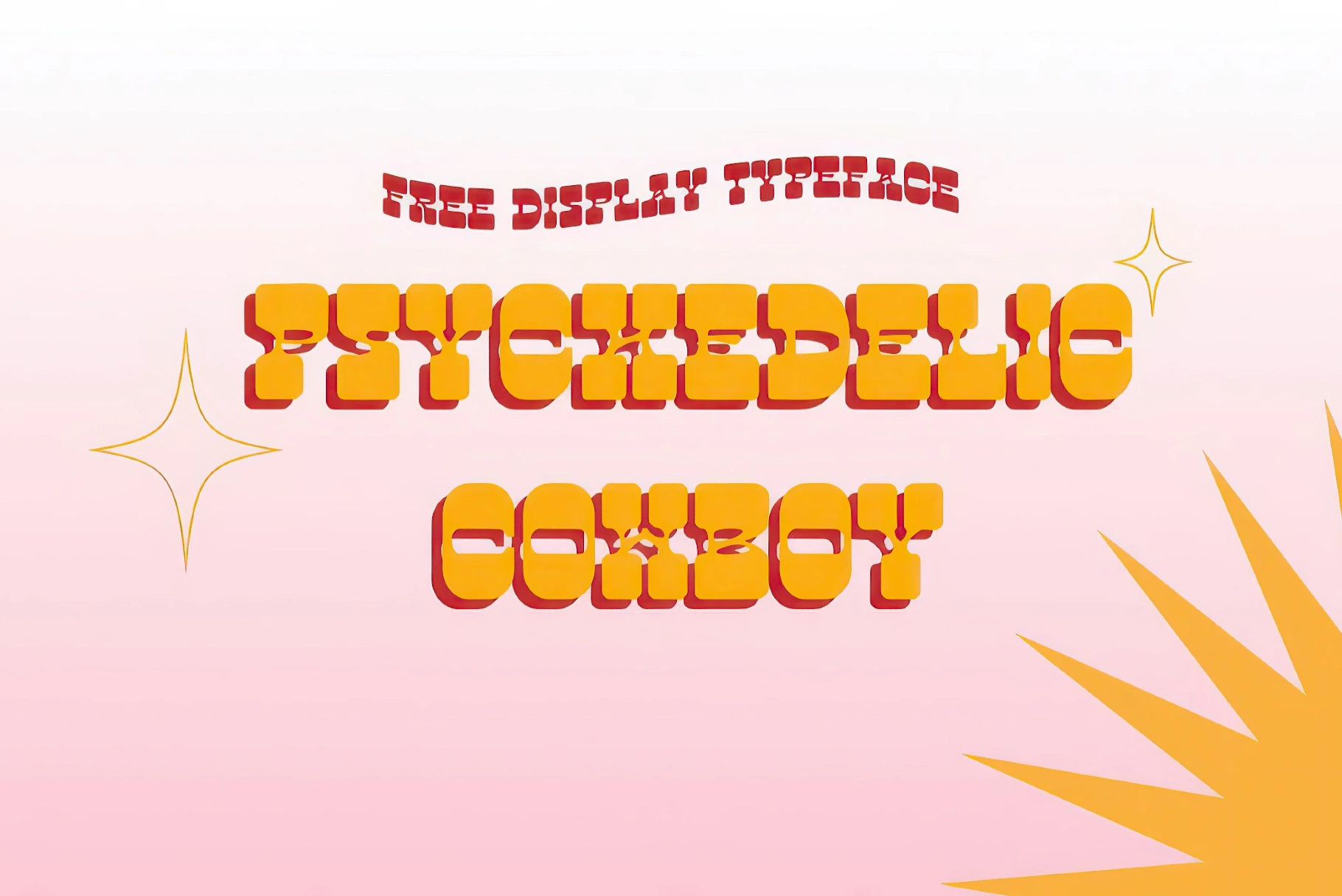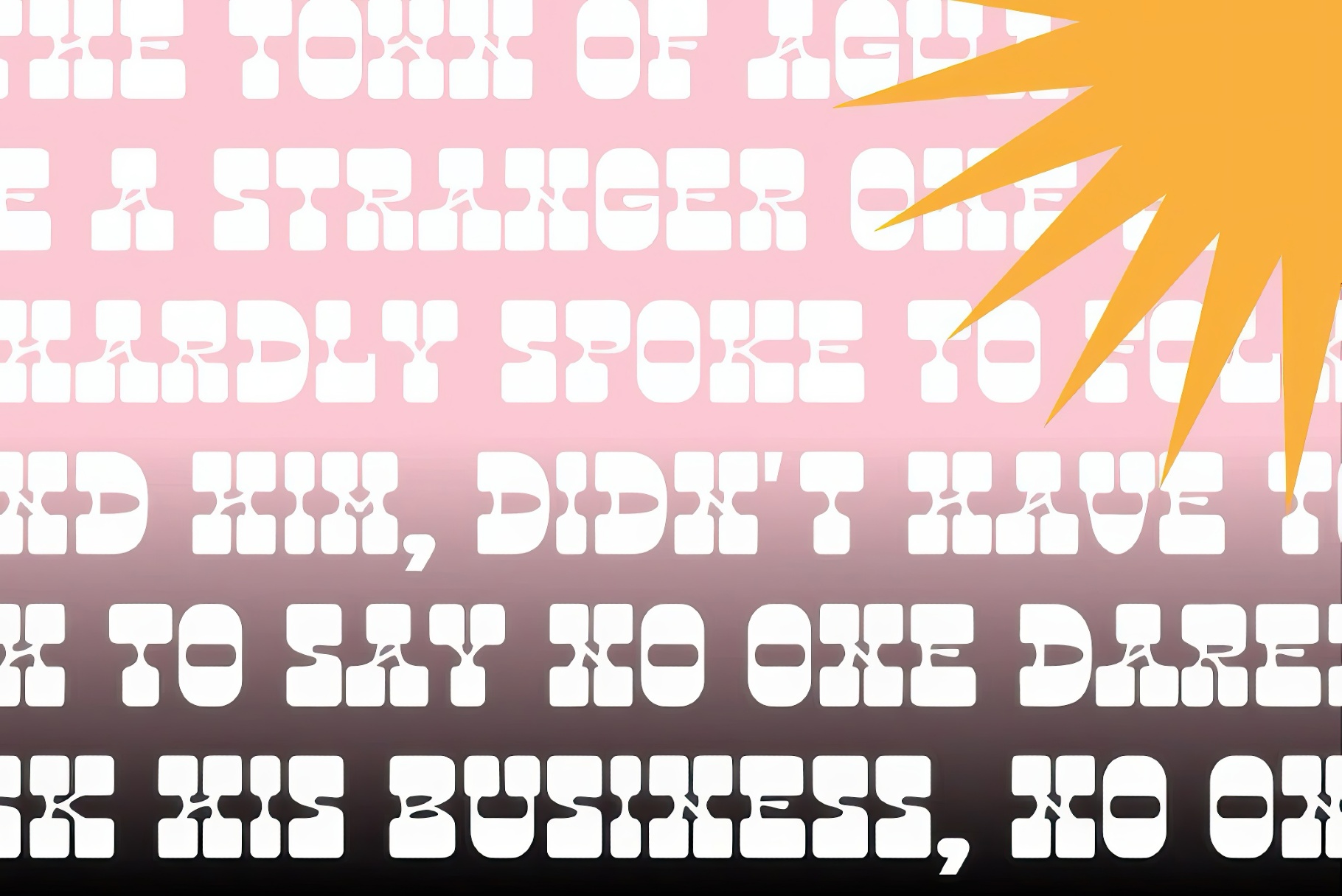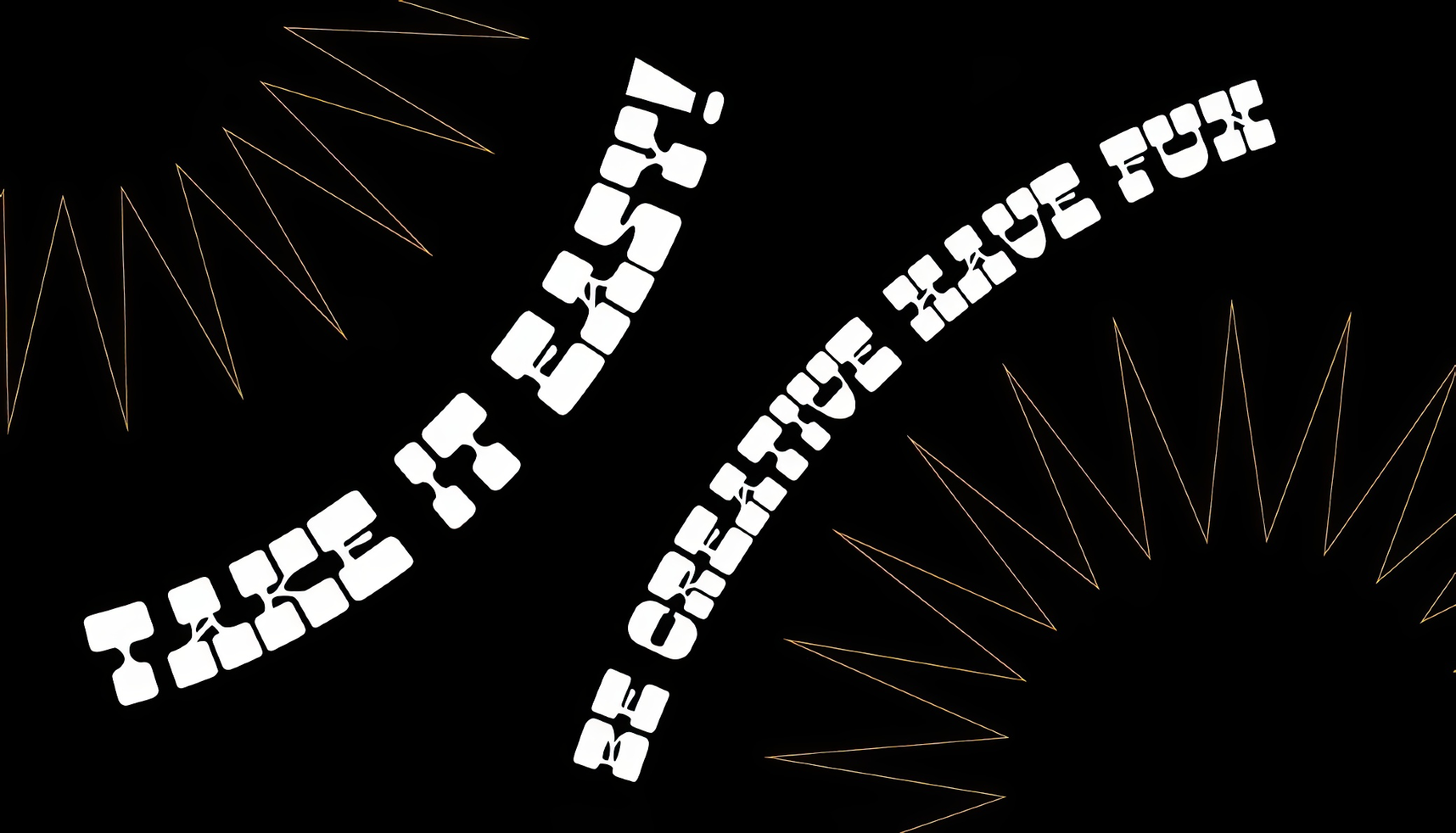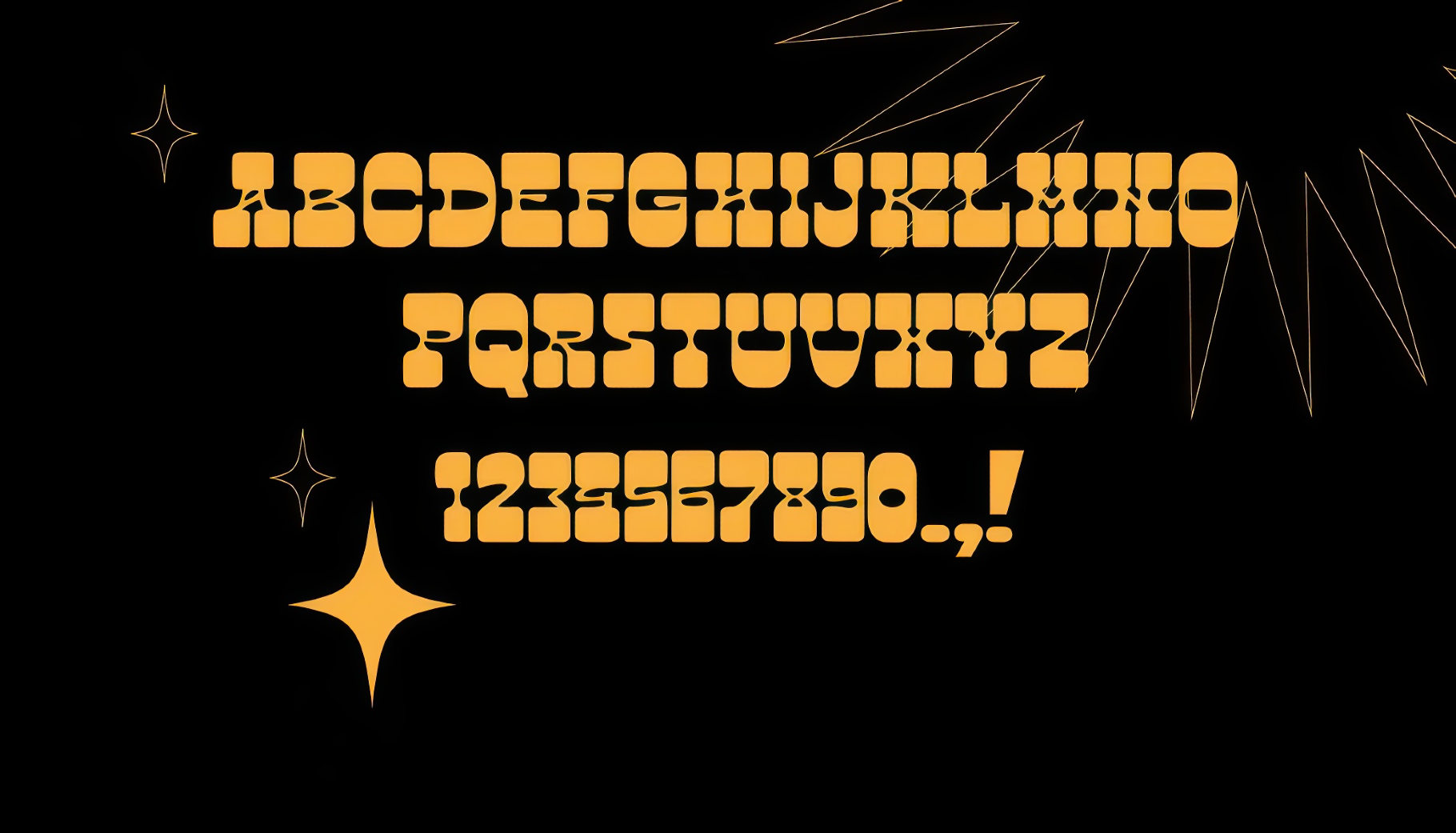
Psychedelic Cowboy | Free Font
Psychedelic Cowboy is a rowdy reverse-contrast display face that riffs on 1960s crazy poster lettering with a roadside-Western twang, full of wavy contours and swaggering curves. This all-caps is ideal for gig posters, album covers, festival branding, film or game titles, packaging, apparel graphics, and social media headlines. It also shines in merch drops, sticker sets, invitations, flyers, and short editorial splashes.
• Only uppercase letters, numbers, and punctuation.
• Some international characters for key accented Latin letters.